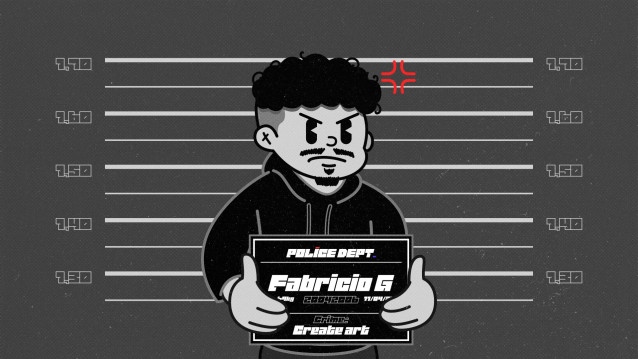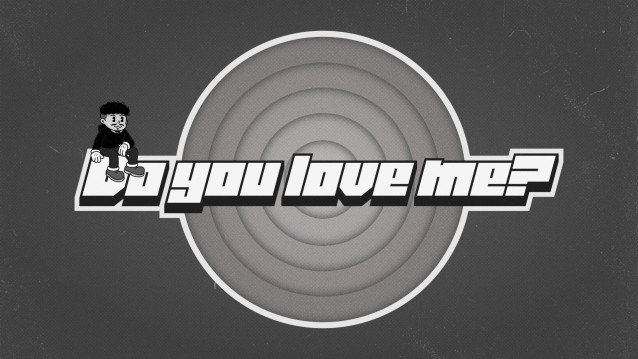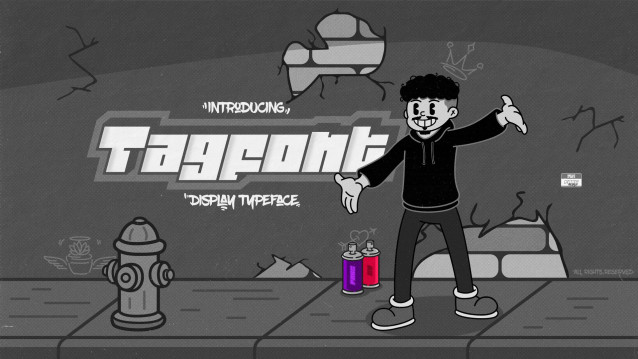
Tagfont Display Font
Tagfont Display Font – Tagfont Outline is a bold and modular display typeface, built with squared shapes and precise contours that fit together like pieces of a “tag”.
Originally designed for my own logo, “FABG”, this typeface was born from a desire to combine clarity, originality, and visual impact. The italic style was the starting point — but the result was so striking, it deserved to become something bigger.
Today, Tagfont Outline features 157 characters, including uppercase, lowercase, numbers, accents, and punctuation — ready to bring a strong voice to creative titles, packaging, apparel, posters, bold branding, and any project that demands design with presence.